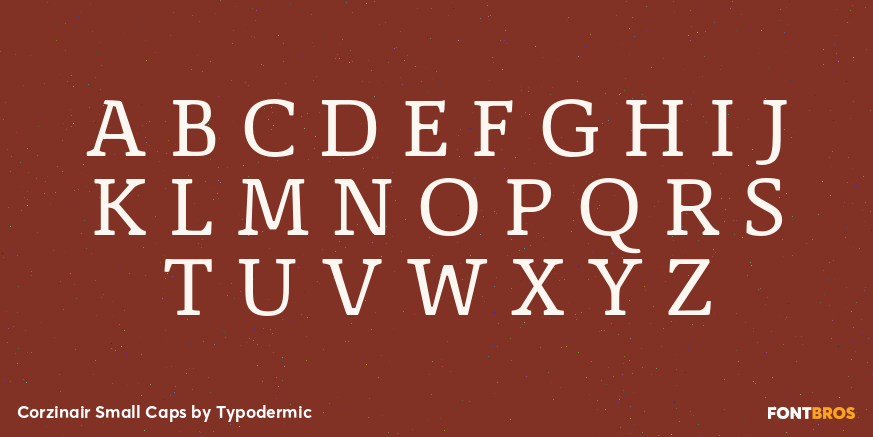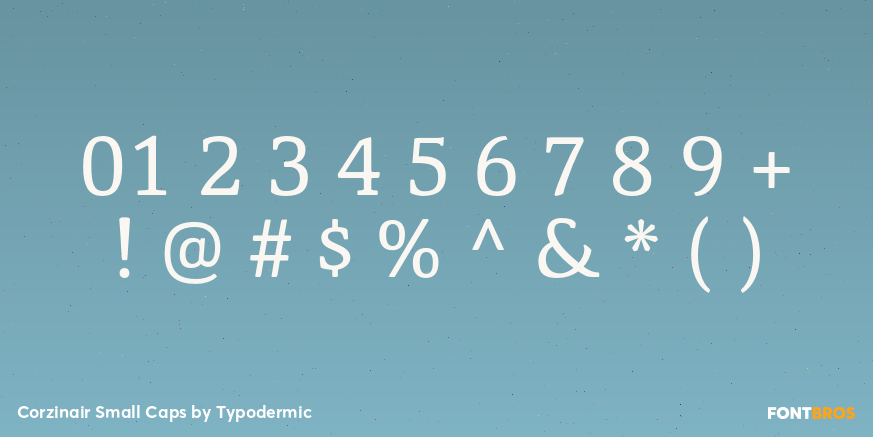
Corzinair Small Caps
Buy NowCorzinair Small Caps turns the family’s lowercase range into compact capitals, creating a built-in documentary hierarchy without introducing a second typeface. The wide squared forms and blunt serifs keep labels feeling recorded and institutional, while the reduced capital height lets categories sit beneath titles without competing at full volume.
Use the Small Caps styles for material-origin labels, service-history sections, certification categories, model-card headings, audit summaries, legal exhibits, component records, and QR-linked product documentation. Regular, Bold, and Italic versions let the same all-capital system distinguish ordinary labels, emphasis, and quoted or provisional information.